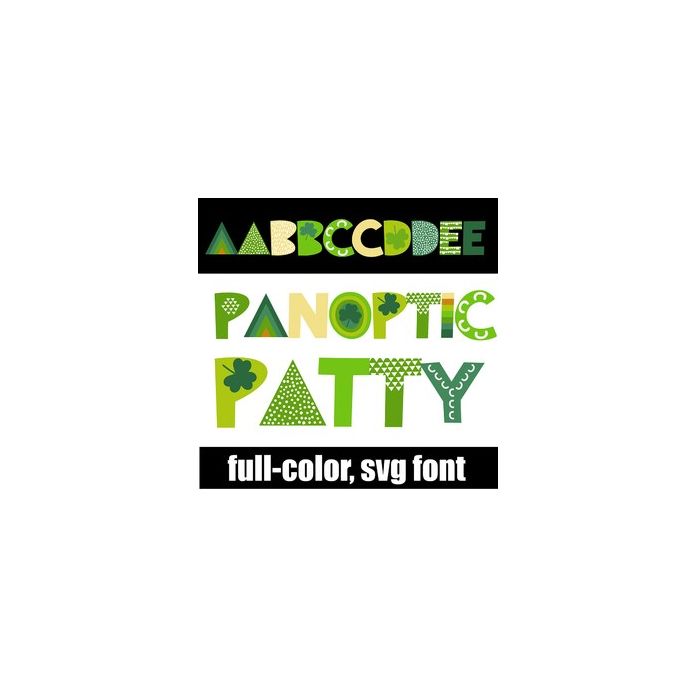
This full-color font features a Scandinavian style lettering in a St. Patrick's Day color palette. There is an alt case w/ additional colors you can access through your system or Silhouette's glyph map.